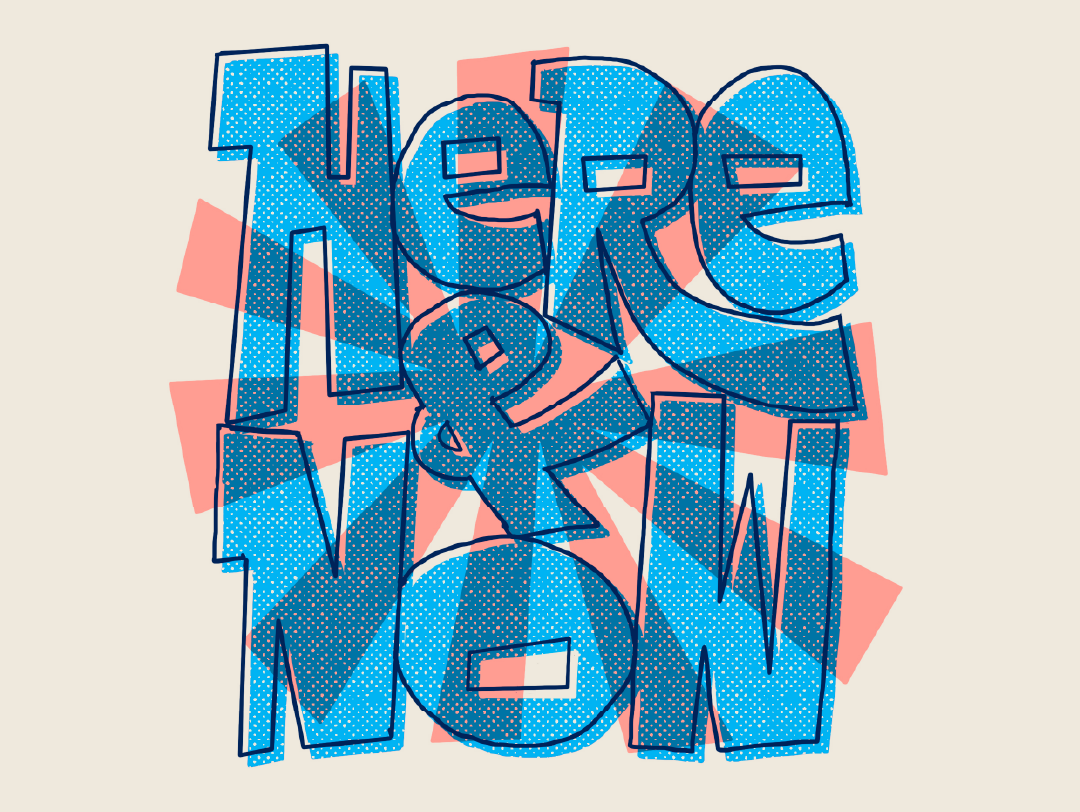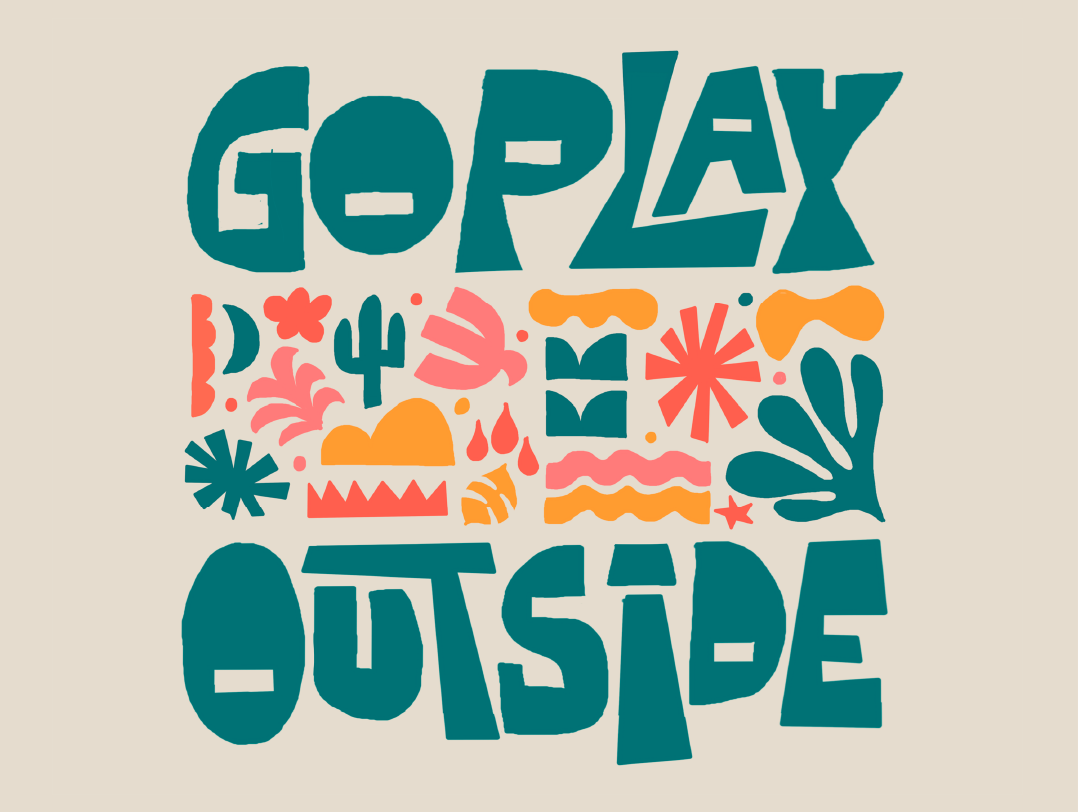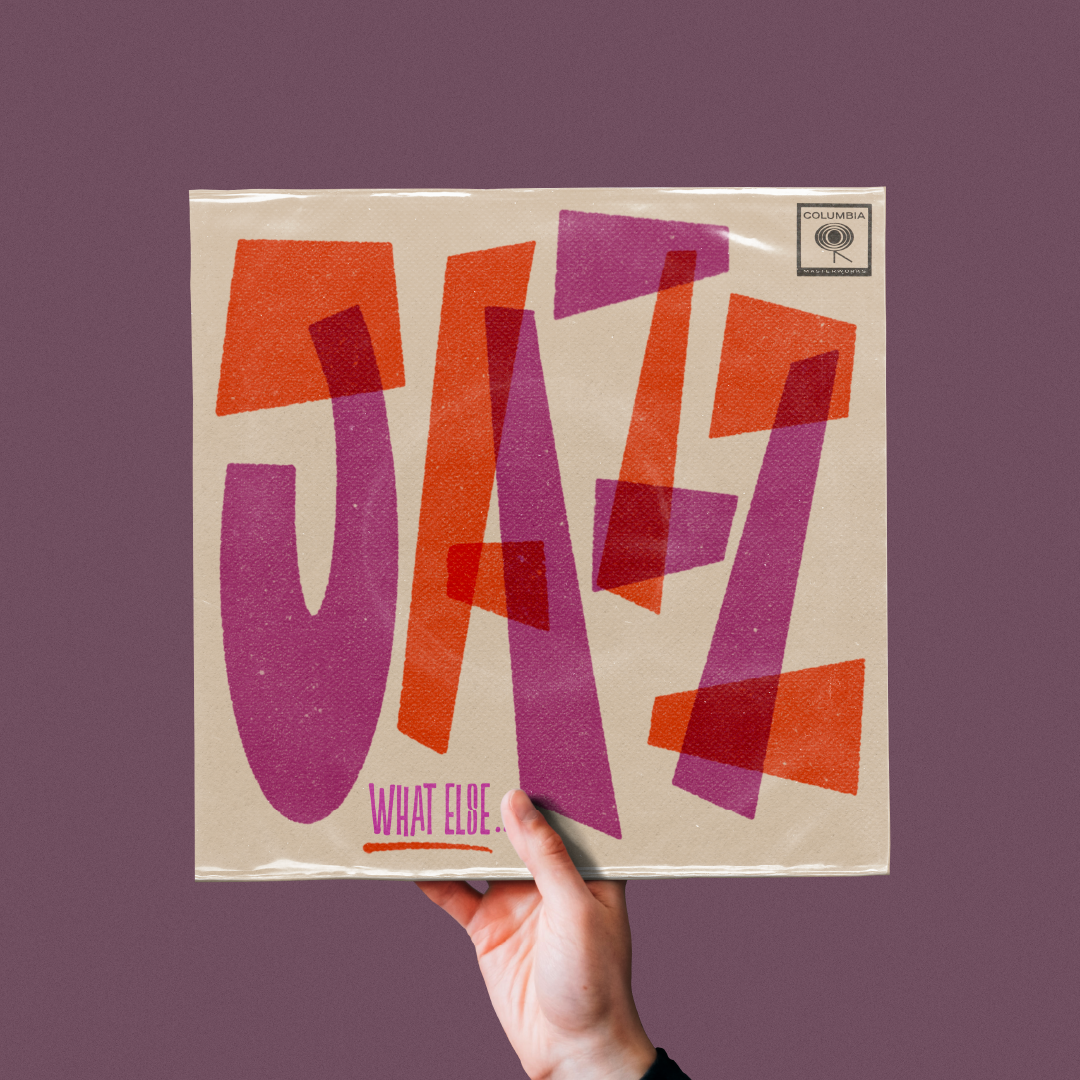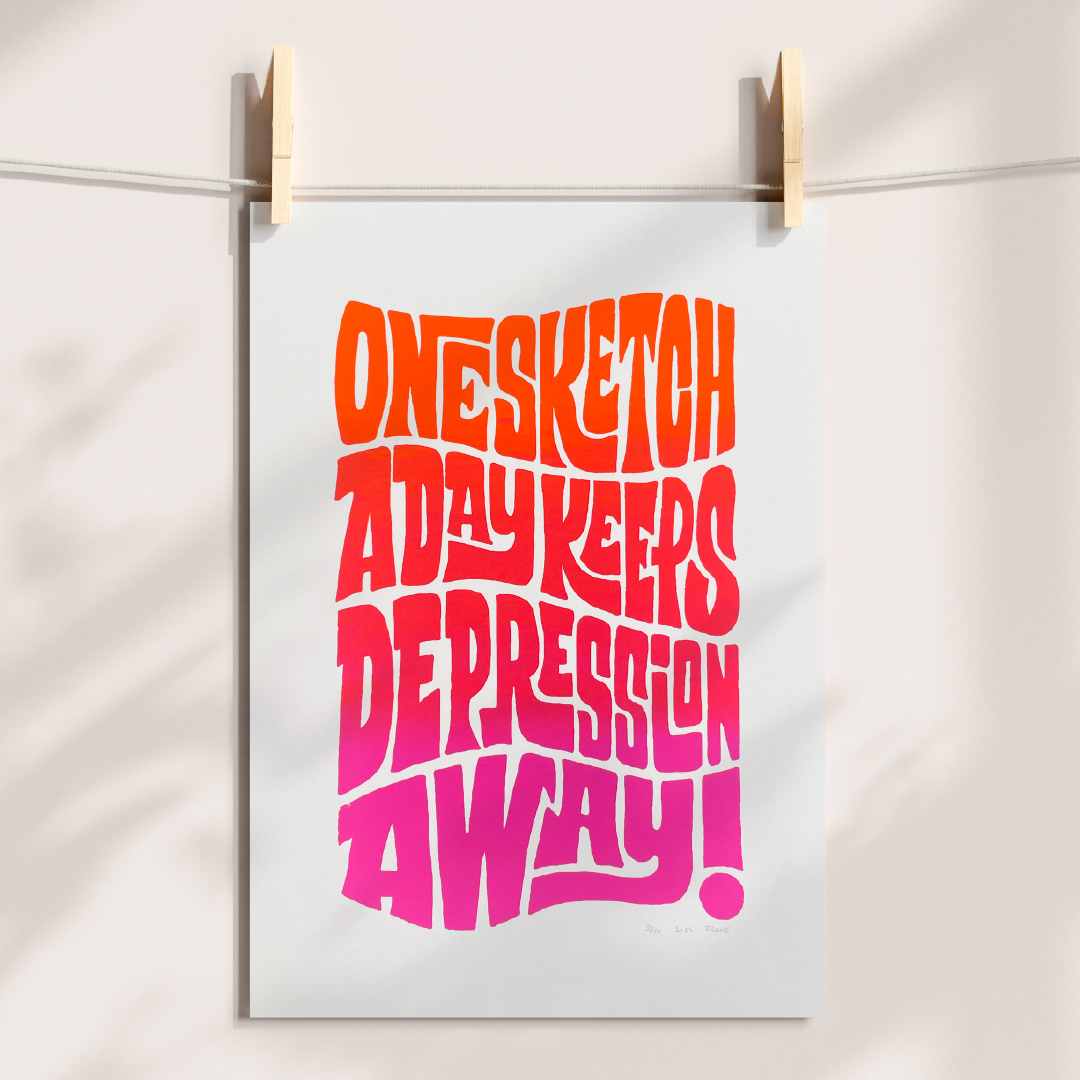
From doodles to downloads: Where lettering meets fonts
In this talk, I will take you behind the scenes of my creative process, where hand-drawn letters evolve into functional fonts. From playful doodles to funky typefaces, discover how Lettering lays the groundwork for everything I design.
As long as I can remember, I have been drawn to drawing. For more than a decade now, I focused my work around letters. Since then, I cannot stop to explore the alphabet and the sheer infinite ways to write and draw letters. My work is strongly influenced by American lettering styles from the 40s to the 70s with joyful, funky and destructured forms. Lately I try to focus more and more on projects around the environment and nature, but also in cultural/artsy projects. I really believe in these both markets to help the world to feel better, planet and people. My everyday work focuses on lettering typographic illustrations for outdoor, sport and mental health apparel and gear. I also create funky and playful fonts.